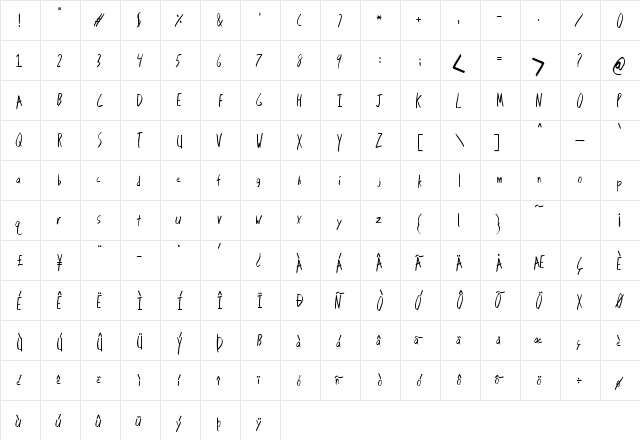
BrackishPond Regular
Design Context for BrackishPond Typeface
BrackishPond is a composed and adaptable typeface that performs quietly and consistently across a wide range of design contexts.